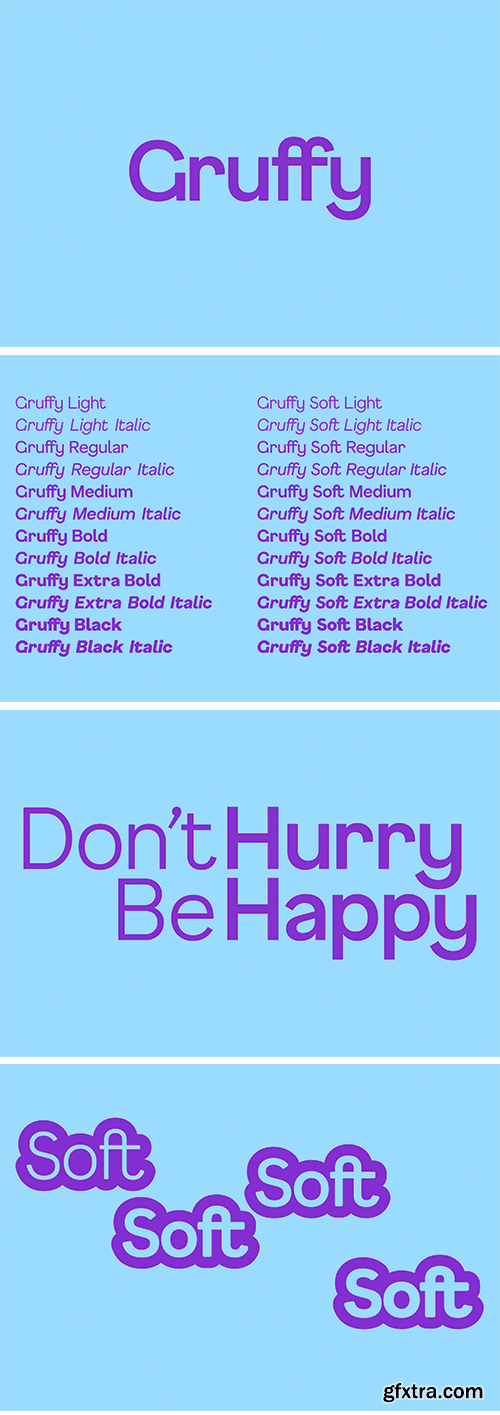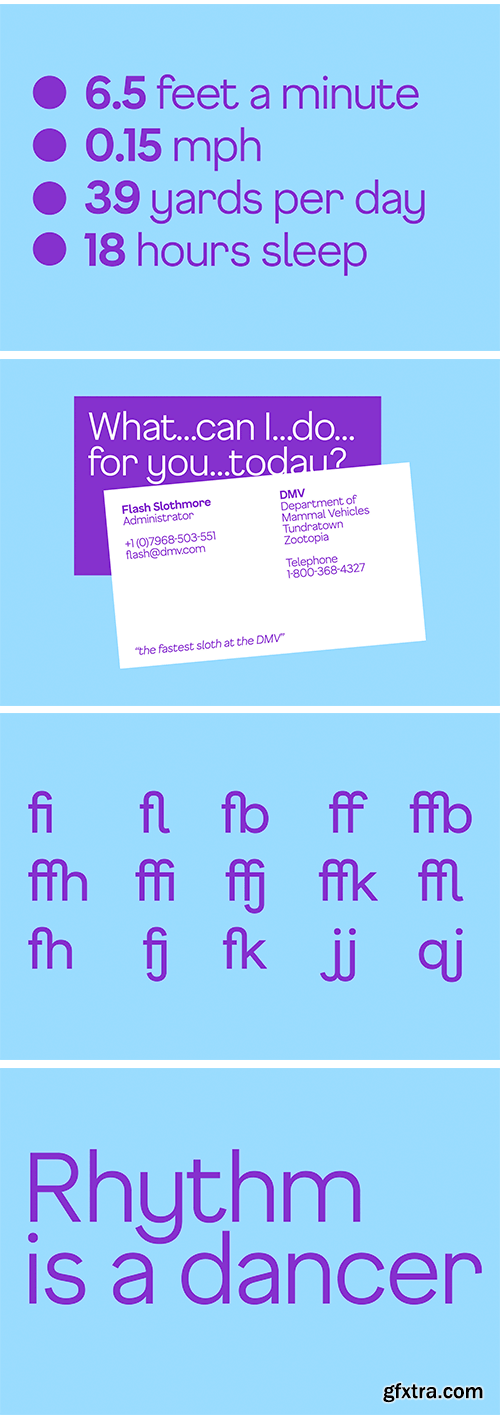
F37 Gruffy Font Family
A friendly, slightly offbeat sans face with enough character and points of difference to stand apart. F37 Gruffy takes inspiration from very early grotesque fonts. It’s a friendly, curvy sans-serif that comes with bags of character. With its upward curly tails, slightly over exaggerated curves and angled terminals, F37 Gruffy is fun, impactful and distinctly modern. It can hold its own with the trendy geometric sans crowd, but has ideas of its own too. F37 Gruffy comes in multiple weights and works well as a display face, but also provides reliable, readable body copy.